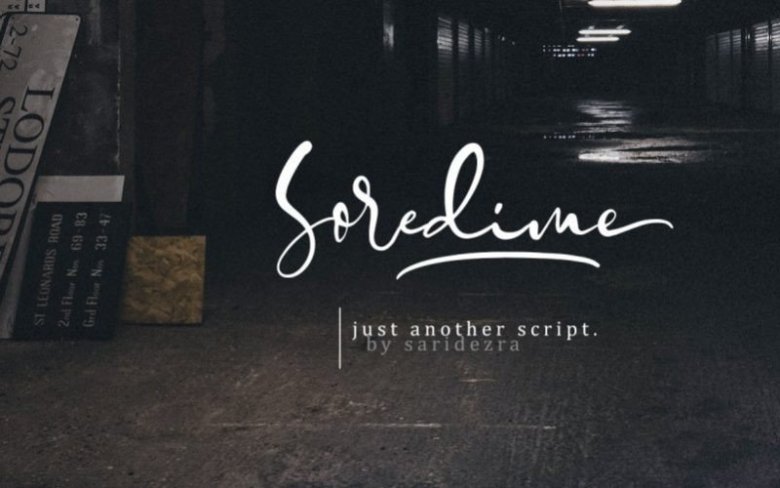
Soredime – Signature Font
Introducing Soredime – Signature Font – Handwritten Font contains a lowercase, uppercase, symbol, and also supports multi-language. This font suitable for fashion, branding, catalog and other design that you want. Soredime Signature Font included alternates, Ligatures, and also Underline. Soredime is a signature font that you can use to make a logo for branding, beautiful fashion design, suitable for wedding invitation, or handwritten quote. Also already PUA Encoded.